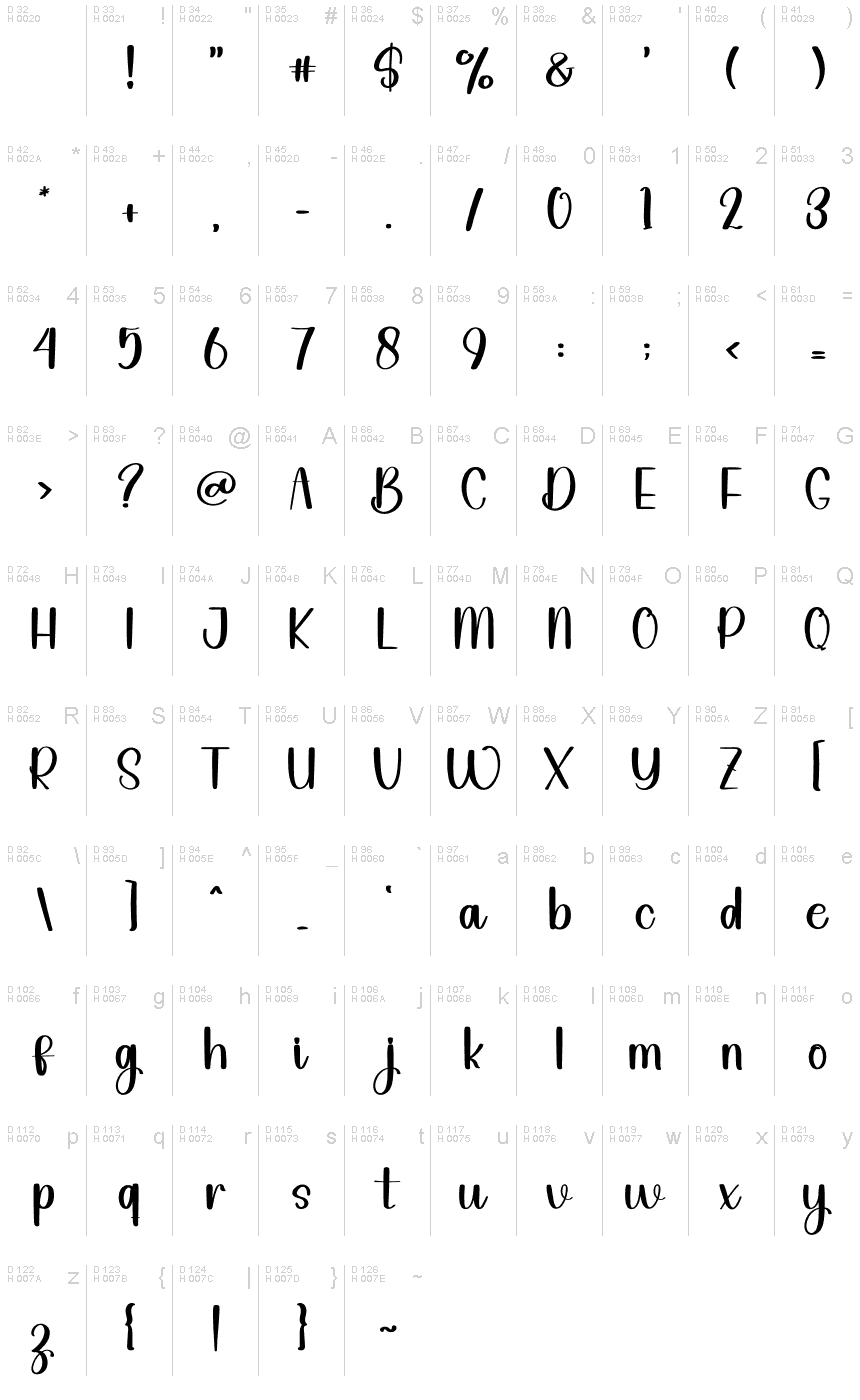
Nothing
Nothing, designed by Inermedia Studio, is a semi-light and semi-condensed handwritten font that exudes charm and personality. Its fluid and expressive letterforms are reminiscent of elegant cursive writing, making it an excellent choice for projects that require a touch of personal flair. The handwritten style of Nothing creates an intimate feel, perfect for invitations, branding, and advertising where a human touch can make all the difference.
The aesthetic appeal of Nothing lies in its balance between legibility and artistic imperfection. It strikes an inviting pose in any creative composition, offering just enough structure to guide the reader's eye while allowing each character to dance with a life of its own. This font is not only versatile due to its semi-condensed width—saving space without sacrificing readability—but also because it maintains a light presence on the page, ensuring that your message is delivered with grace and style.
Whether you're crafting book covers, creating logos or designing social media graphics, Nothing has the potential to elevate your work with its unique blend of casual elegance and modern sophistication.